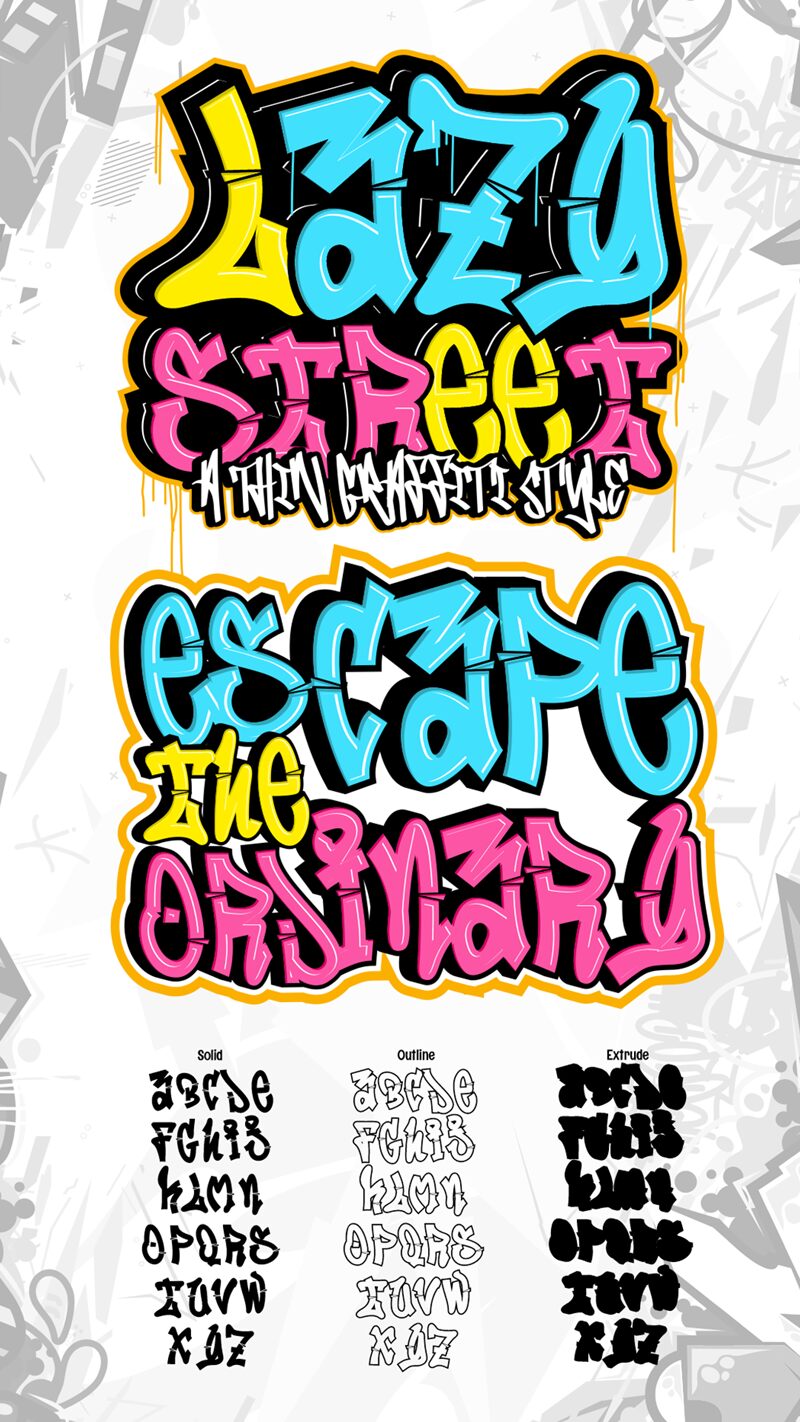
Lazy Street Outline by Sipanji and Figuree is a free outlined graffiti display font with lanky, irregular letters and the loose construction of a hand-drawn wall piece. Tall loops, sharp bends, and broken inner strokes keep the alphabet restless, with each character leaning into a slightly different silhouette.
Streetwear and youth-culture audiences are the clearest match, particularly for apparel graphics, music posters, and skate branding that benefit from lettering with a raw, comic edge. Its stretched shapes and sliced interior accents also suit urban game artwork and event graphics, where the alphabet can become part of the graffiti imagery rather than function as neutral type.
Lazy Street Outline